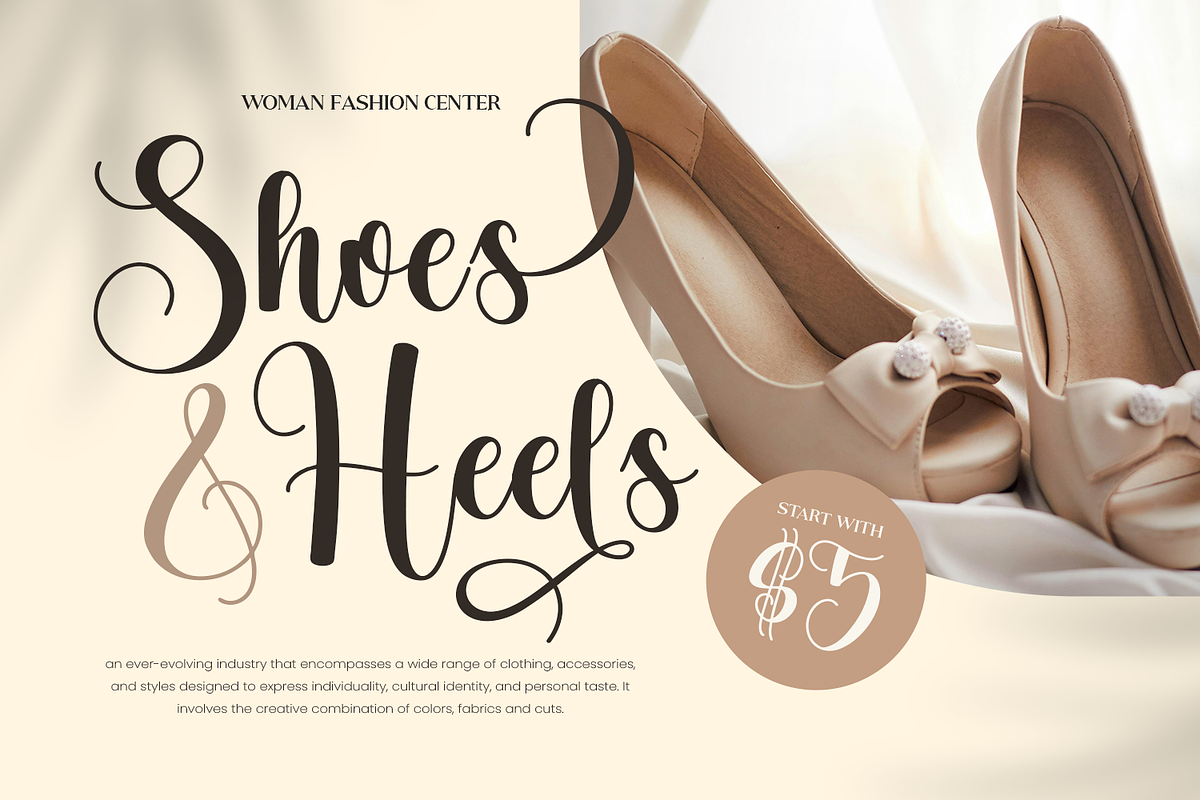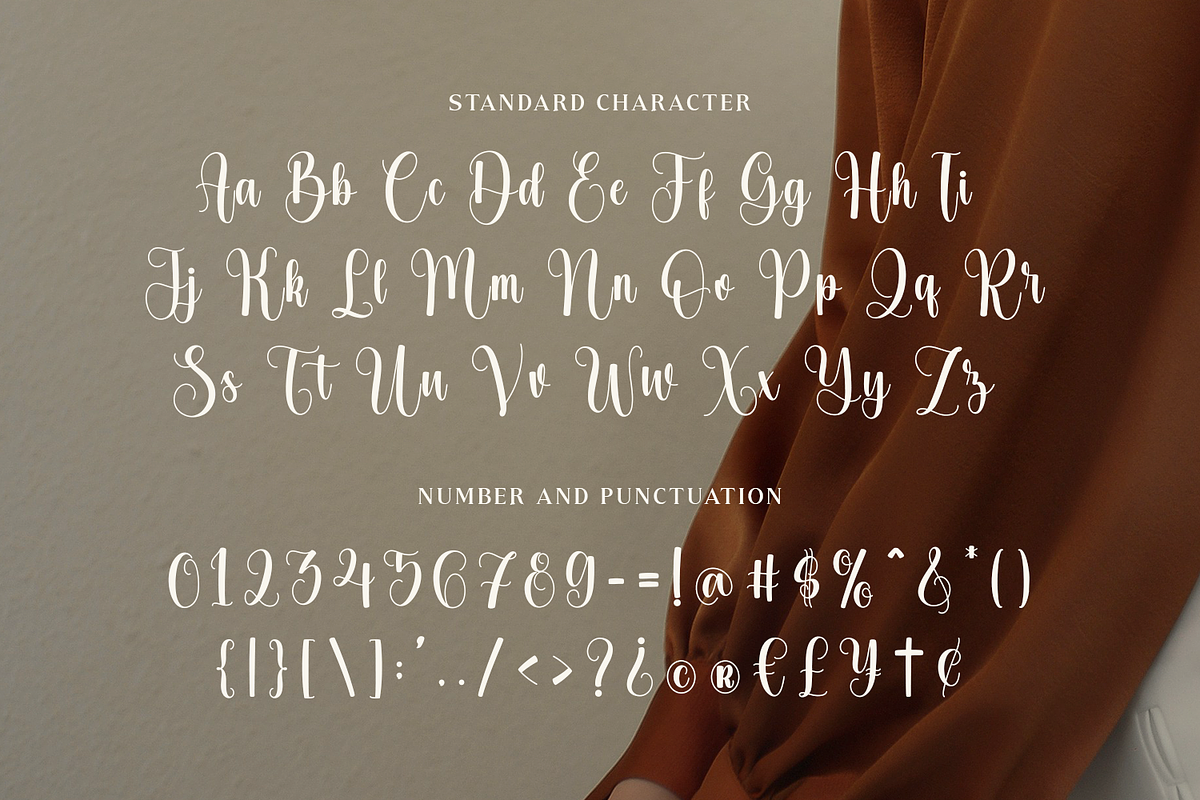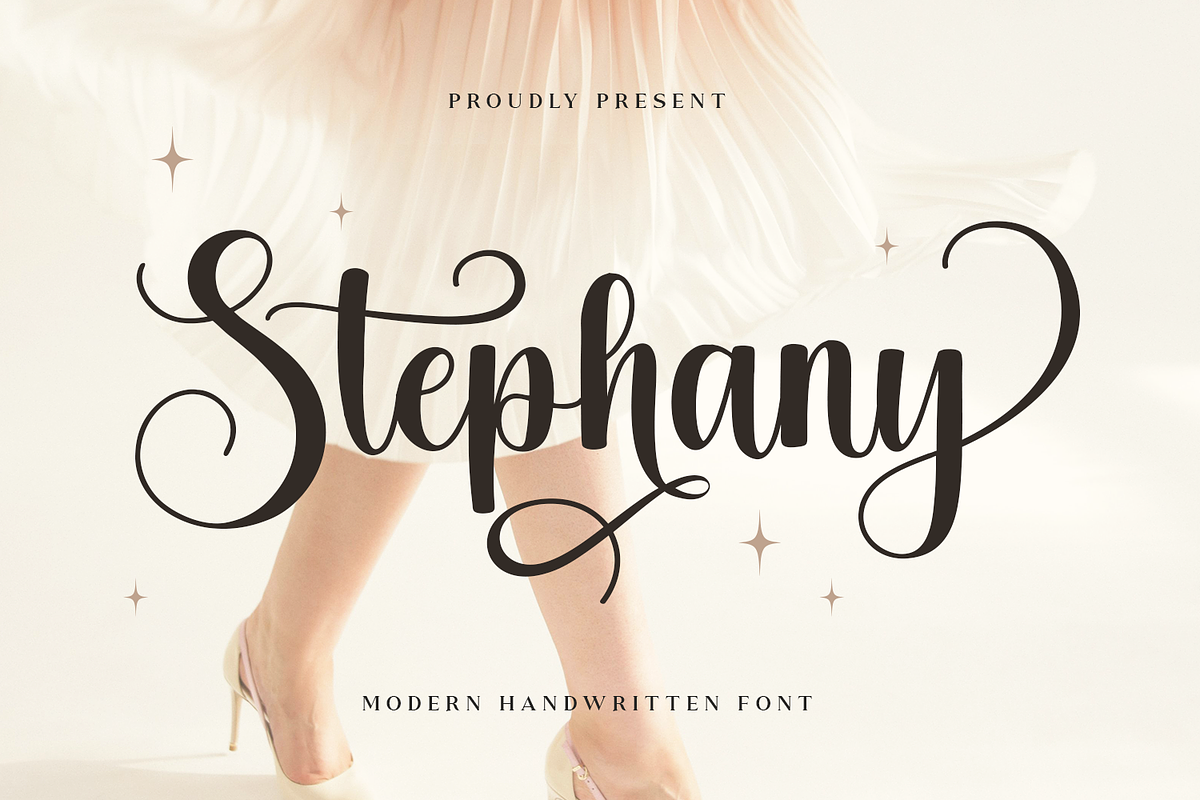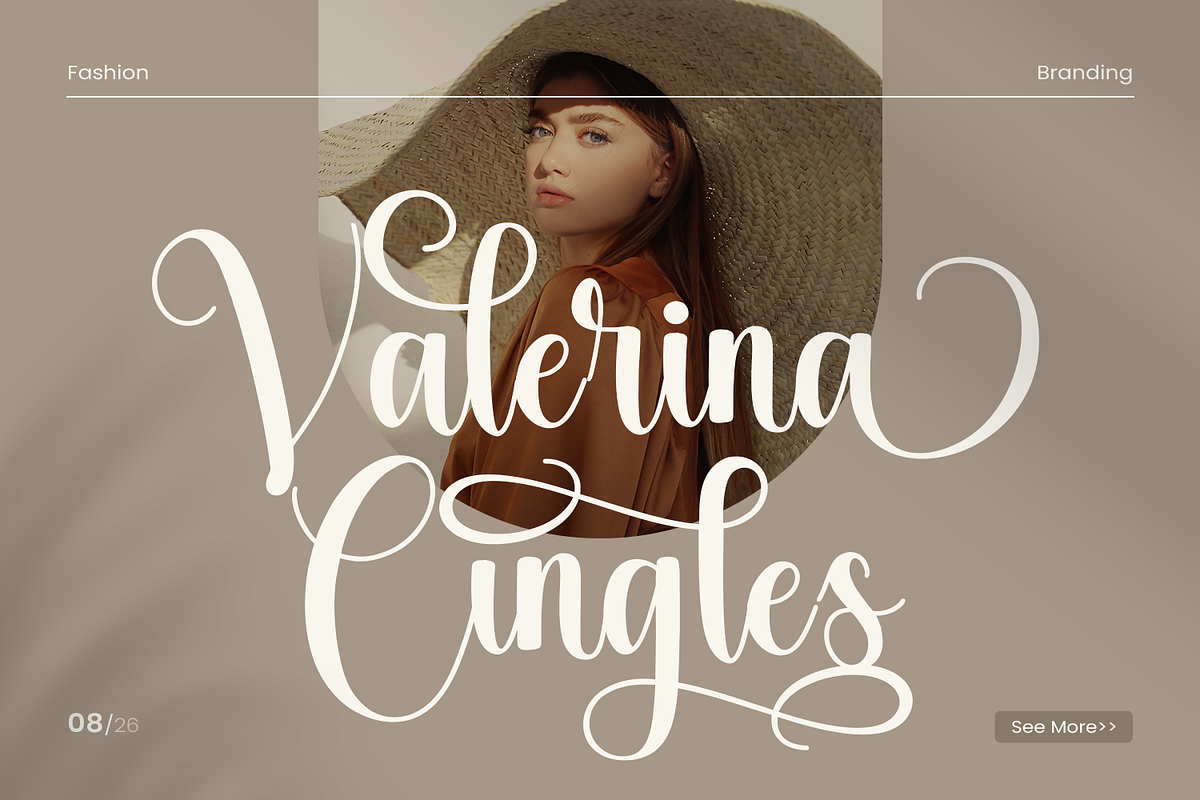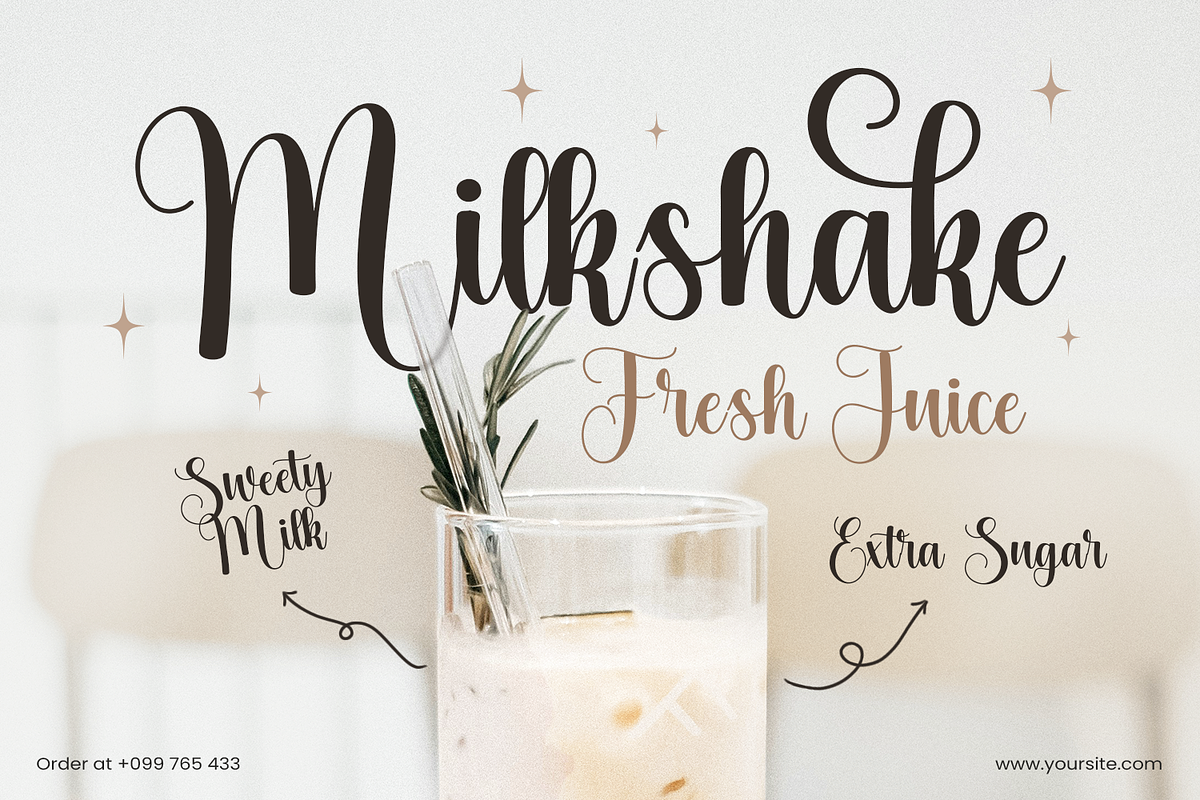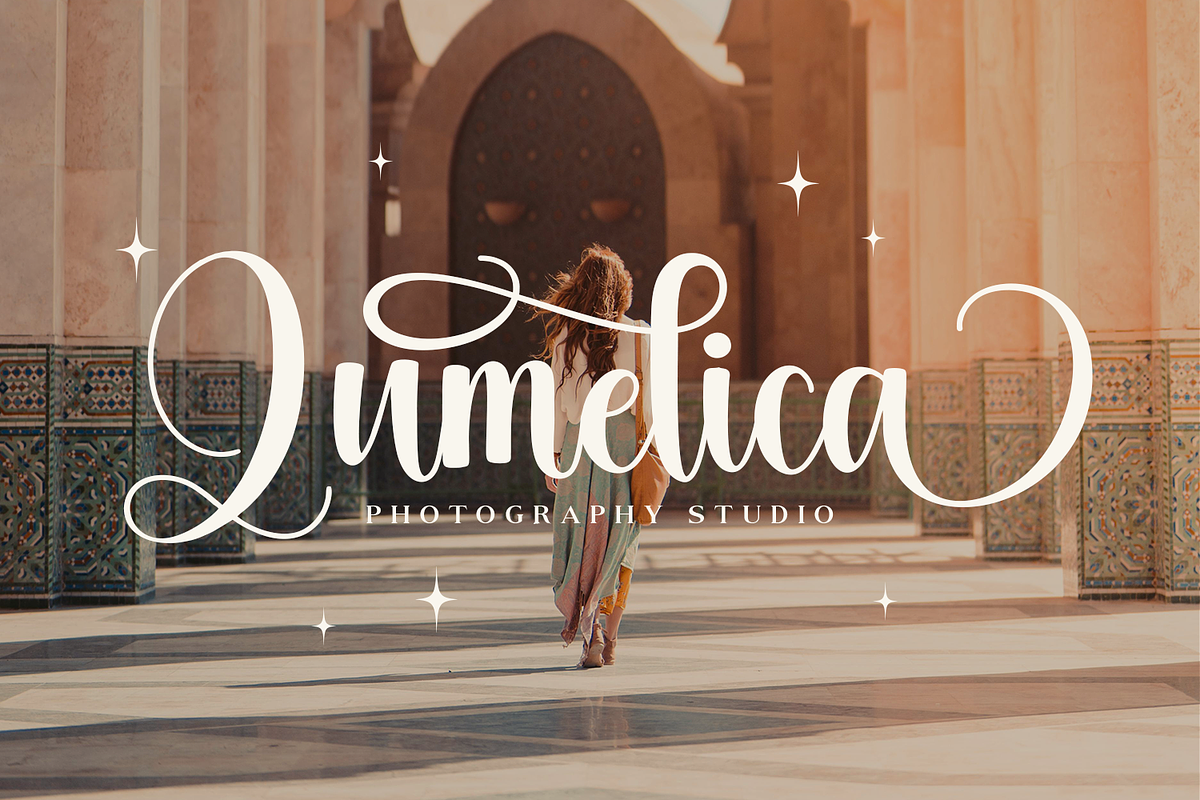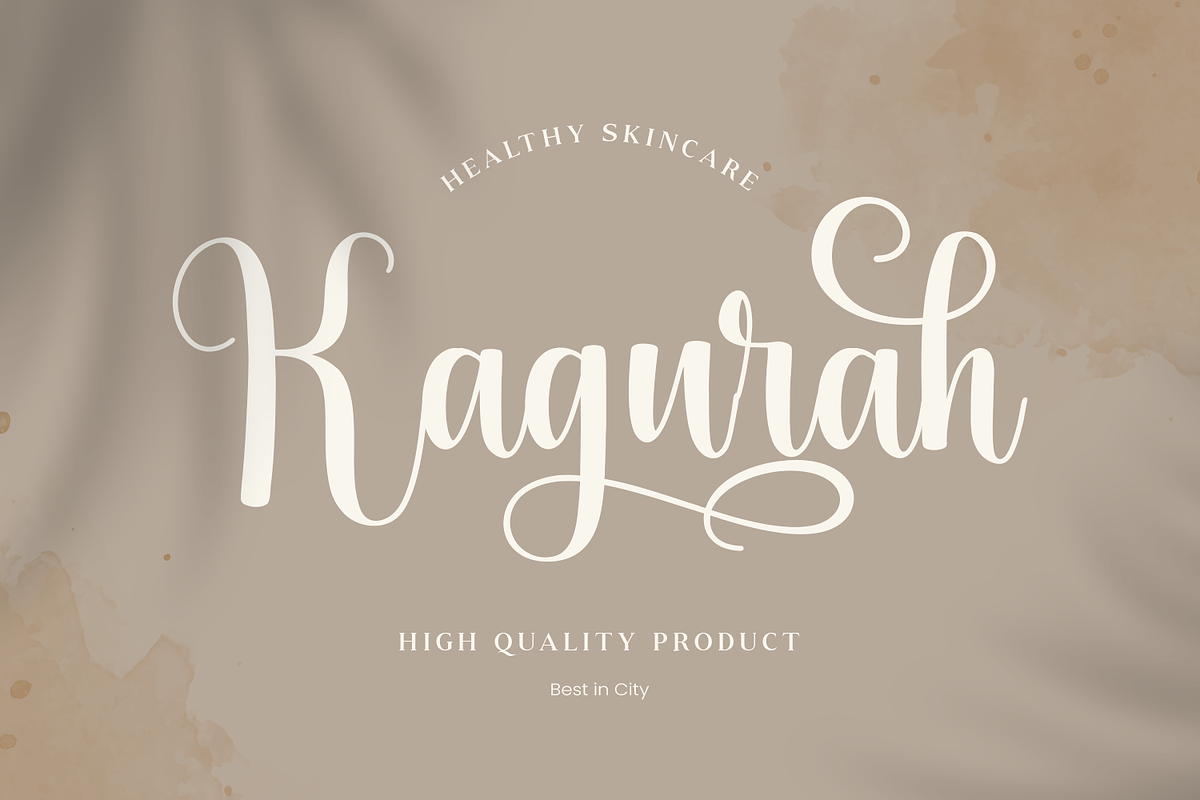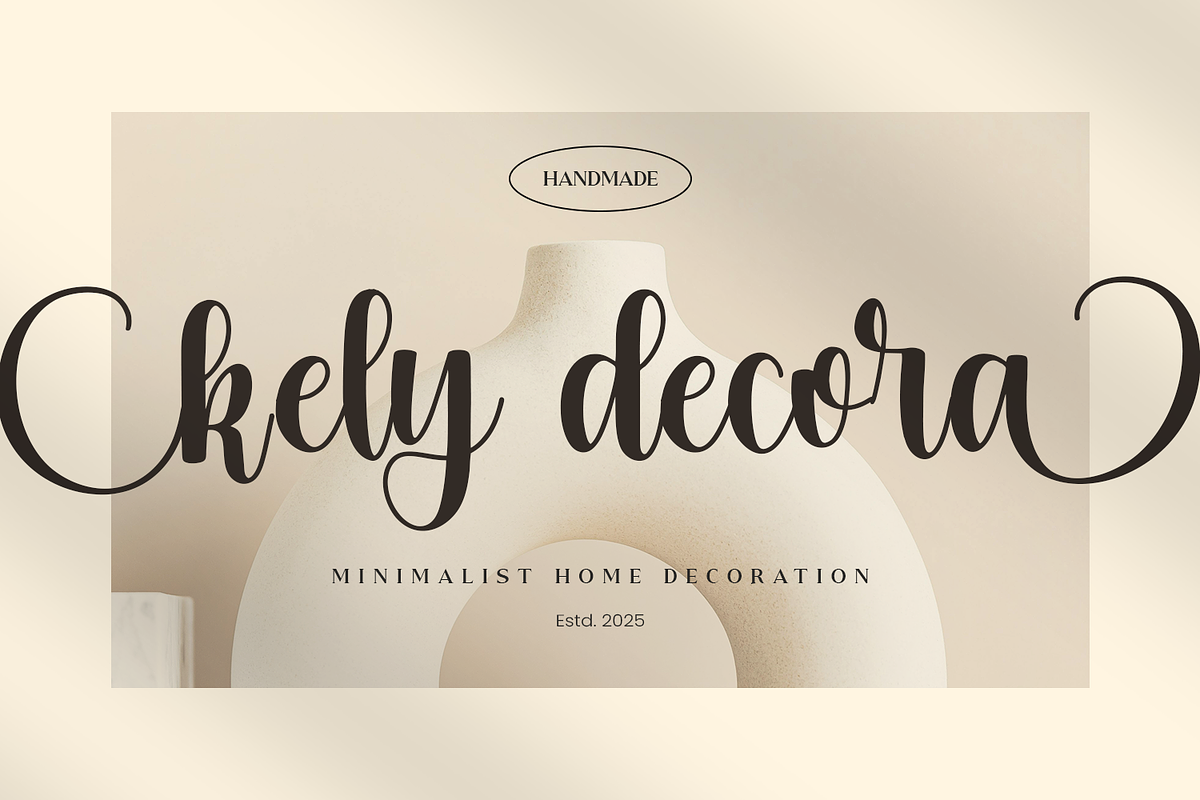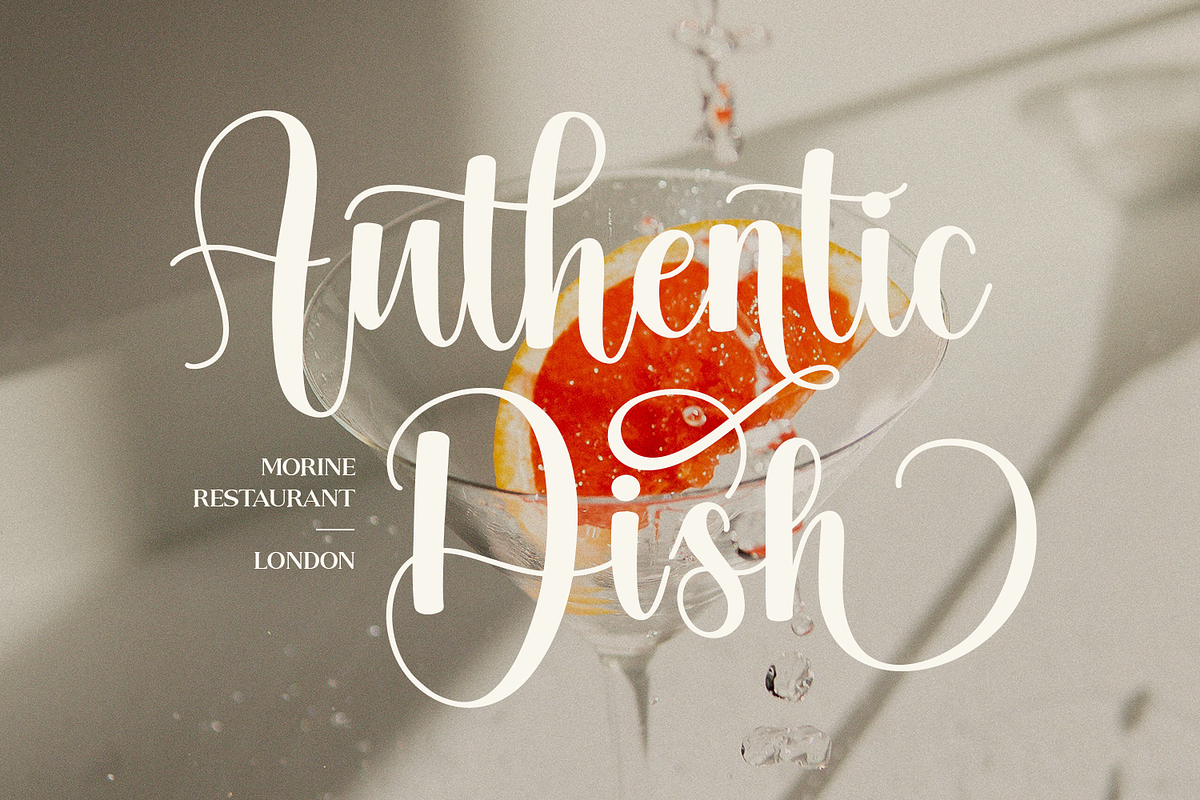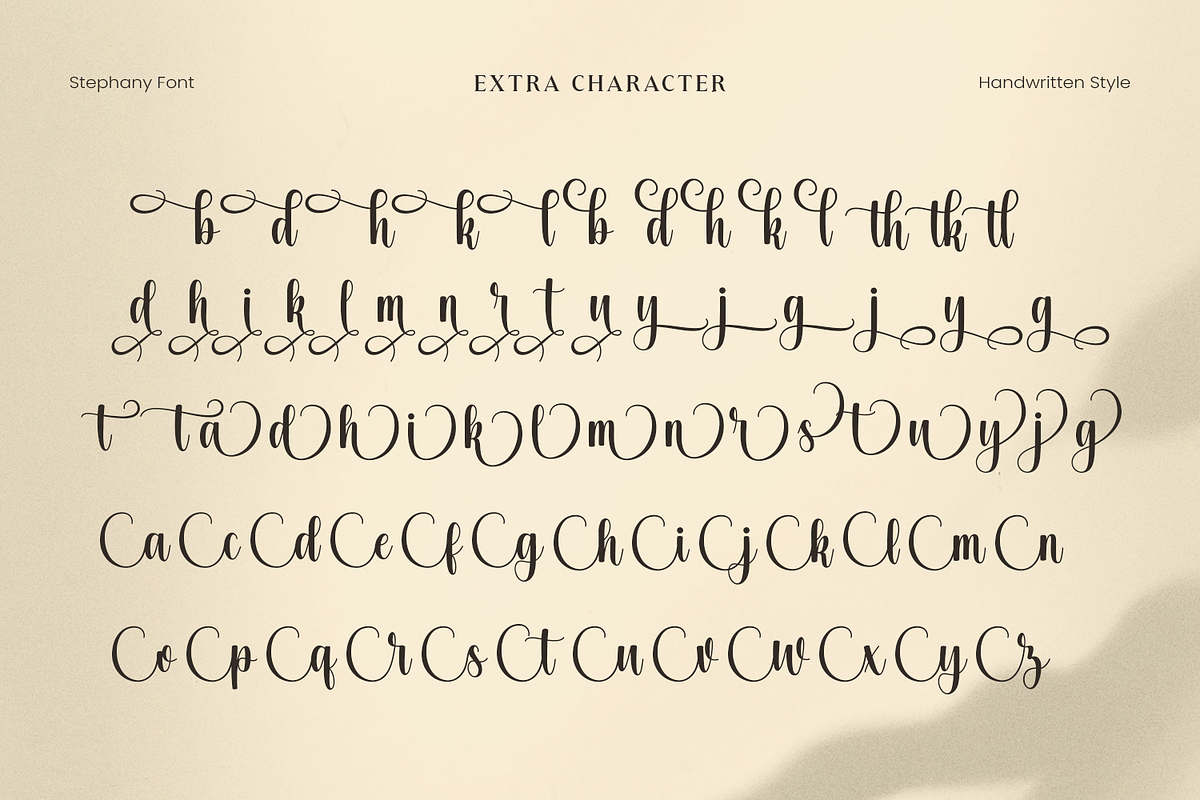
Stephany
Stephany is a stunning script handwritten font that exudes elegance and charm, perfect for a variety of special occasions and creative projects. Its fluid strokes and graceful curves make it an ideal choice for wedding invitations, birthday cards, Easter greetings, and other festive celebrations. Whether you're designing for Thanksgiving, Christmas, or seasonal events like summer, spring, or autumn, Stephany adds a personal and heartfelt touch to every project.
This font stands out with its unique beginning and ending swash tails, adding a touch of sophistication and whimsy to each character. Every letter flows seamlessly, creating a harmonious balance that enhances the overall aesthetic. With a plethora of alternative swashes to choose from, Stephany offers endless possibilities to personalize your designs, making it a versatile asset for any creative endeavor.
Perfect for crafting, Cricut projects, embroidery, and lettering, Stephany brings a sense of warmth and artistry to your work. Its versatility makes it suitable for everything from stylish SVG designs to heartfelt keepsakes. The handcrafted style of this font ensures that your projects will feel authentic and one-of-a-kind, whether you're creating for yourself or a loved one.
Elevate your designs with Stephany and let its timeless elegance shine through. Explore its variety of swashes and alternate characters to unlock your creativity. Make your projects unforgettable—try Stephany today and experience the magic of handwritten perfection!